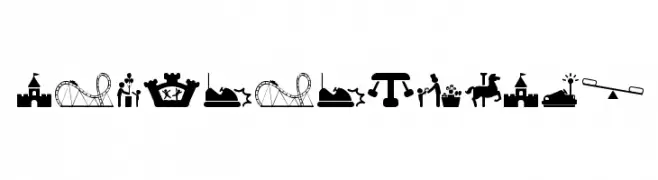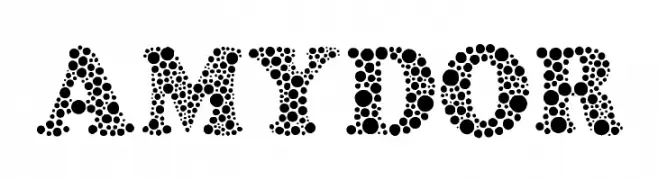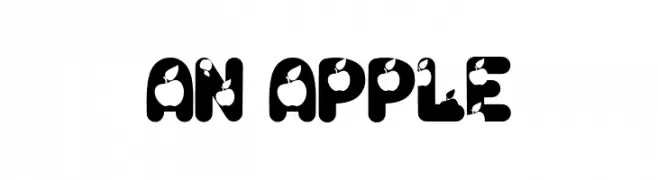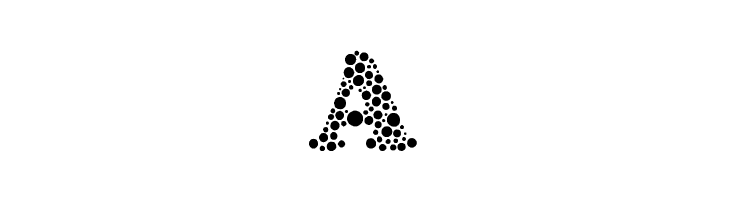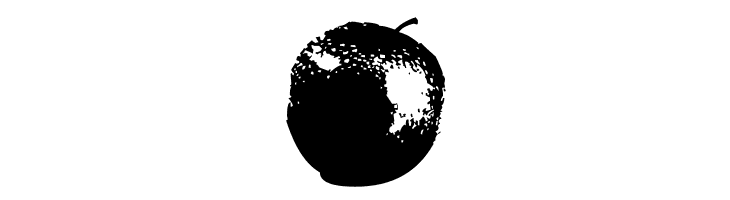
A decorative pictogram font featuring amusement park icons.
A playful, bold font with rounded edges and uniform stroke width.
A bold, italic font with rounded, smooth characters and a dynamic style.
A modern, italicized outline font with a playful and dynamic style.
A modern, playful outline font with geometric shapes and consistent design.
A playful, hand-drawn font with bold, rounded strokes and a whimsical style.
A playful, handwritten font with fluid strokes and a lively style.
A display font using portrait images for each character.
A pictorial font using stylized portraits for each character.
Photographic portrait-based decorative display font.
Photographic silhouette display font with unique images for each character.
Photographic portrait glyphs in a decorative, high-contrast style.
A display font using stylized photographic images for each character.
A playful, circle-patterned decorative font ideal for creative projects.
A dynamic and fluid script font with connected letterforms and a handwritten style.
A bold, flowing script font with elegant curves and dynamic style.
A playful, rounded font with a whimsical and friendly appearance.
An elegant script font with intricate swashes and flowing characters.
A bold, playful handwritten font with consistent strokes and a casual style.
A bold, playful font with bite-like cut-outs in each character.
A playful font made entirely of fruit illustrations, perfect for creative projects.
A delicate and flowing script font with elegant cursive letterforms.
A bold, decorative font with a distressed, vintage style.
A bold, dynamic font with thick strokes and a slight slant.
A bold, dynamic font with a playful, hand-painted style.
A playful, handwritten font with fluid strokes and a casual style.
A bold, italicized grunge font with a rugged, distressed texture.